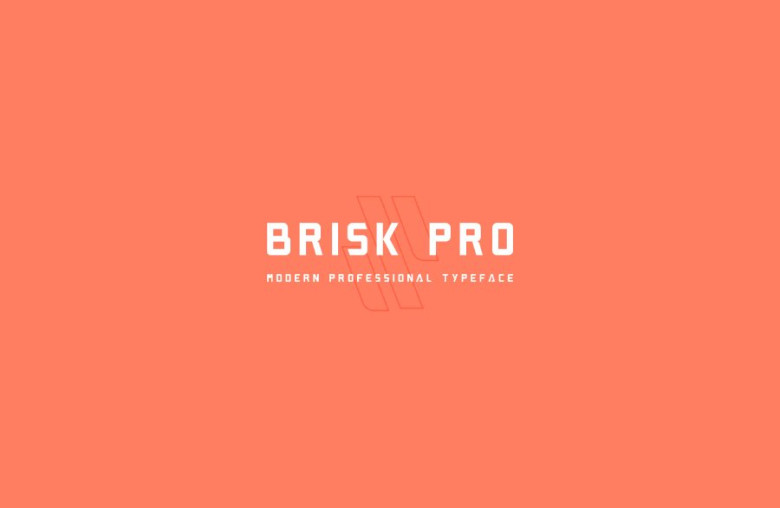
Brisk Pro Typeface
Introducing Brisk Pro Typeface! Brisk Pro designed and shared by Graphicpear. Brisk Pro is a free sans serif font inspired by a logo which originally designed for a copy center called Elva. The letters used in the Elva logo were further developed into a full typeface.